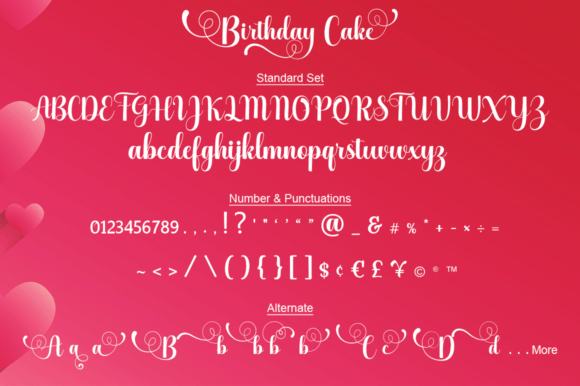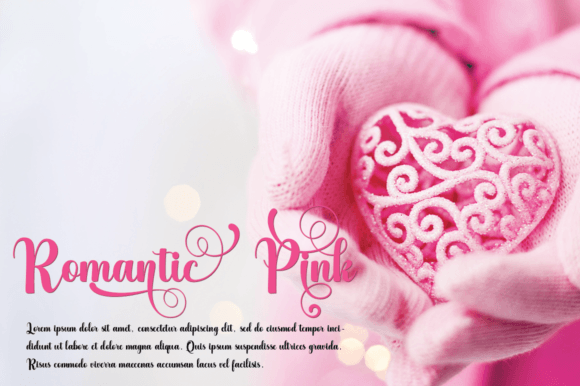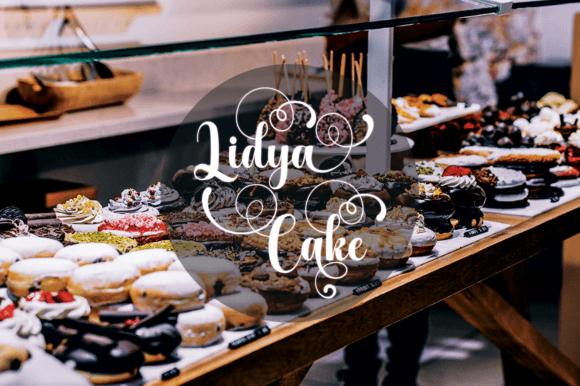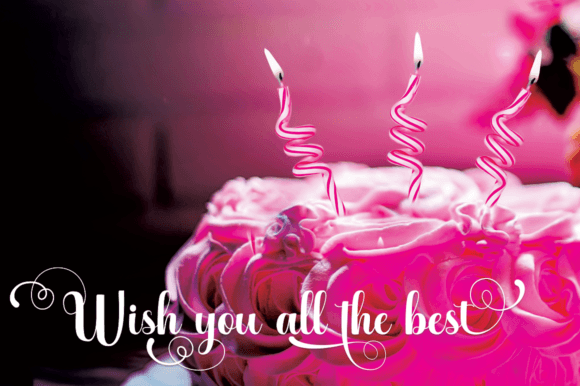
Introducing the Elegant Birthday Cake Font: Elevate Your Designs with Timeless Style
Are you on the hunt for a font that exudes sophistication, modernity, and a touch of whimsy? Look no further than the Birthday Cake Font, a beautiful and refined handwritten font that is perfect for a wide range of design applications. Whether you’re creating birthday party invitations, logos, branding materials, or wedding designs, this stunning font is sure to impress.
A Classy and Modern Handwritten Font
The Birthday Cake Font is a masterclass in elegant typography. Its classy and modern handwritten style makes it an ideal choice for designers and crafters who want to add a touch of sophistication to their work. The font’s refined lines and curves create a sense of luxury and refinement, making it perfect for high-end branding, wedding designs, and other special occasions.
One of the best things about the Birthday Cake Font is its versatility. Its uses are endless, and it can be applied to a wide range of design projects, including:
- Birthday party invitations and decorations
- Wedding designs, including invitations, stationery, and decor
- Apparel branding and merchandise
- Stationery and paper crafts
A Timeless Style that Stands Out
The Birthday Cake Font boasts an incredibly distinct and timeless style that is sure to make your designs stand out from the crowd. Its unique blend of classic and modern elements creates a look that is both nostalgic and contemporary, making it perfect for designers who want to create something truly special.
The Birthday Cake Font is PUA (Private Use Area) encoded, which means that you can access all of the glyphs and swashes with ease. This feature makes it easy to customize your designs and add unique touches that will make your work truly special.
Why Choose the Birthday Cake Font?
So why choose the Birthday Cake Font for your next design project? Here are just a few reasons:
- Elegant and refined style: The Birthday Cake Font is a beautiful and sophisticated handwritten font that will add a touch of luxury to any design.
- Versatility: The font can be used for a wide range of design applications, from birthday party invitations to wedding designs and branding materials.
- Timeless style: The font’s unique blend of classic and modern elements creates a look that is both nostalgic and contemporary.
- Easy to use: The font is PUA encoded, making it easy to access all of the glyphs and swashes.
Tips for Using the Birthday Cake Font
Here are a few tips for using the Birthday Cake Font in your designs:
- Pair it with complementary fonts: The Birthday Cake Font looks great when paired with clean, sans-serif fonts like Arial or Helvetica.
- Experiment with different colors and textures: The font looks great in a variety of colors and textures, from metallic gold and silver to soft pastels.
- Add embellishments and graphics: The font’s PUA encoding makes it easy to add embellishments and graphics to your designs.
The Birthday Cake Font is a beautiful and refined handwritten font that is perfect for designers and crafters who want to add a touch of elegance and sophistication to their work. With its timeless style, versatility, and ease of use, it’s an ideal choice for a wide range of design applications. So why wait? Download the Birthday Cake Font today and start creating spectacular designs that will leave a lasting impression!